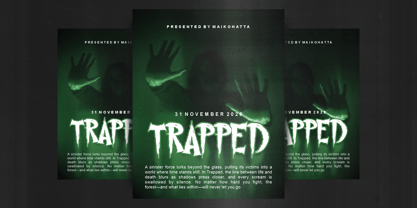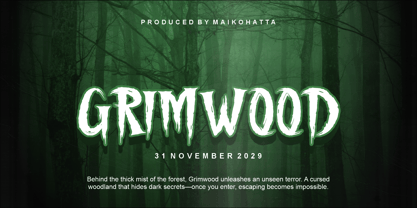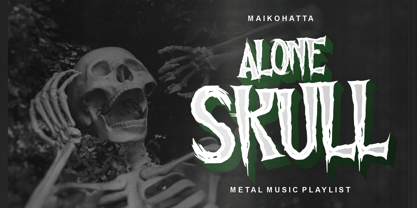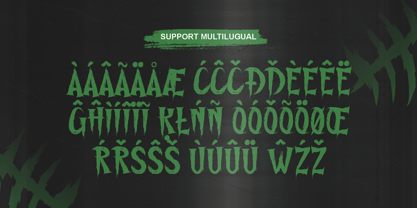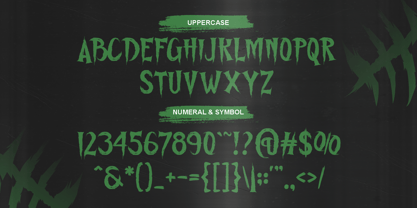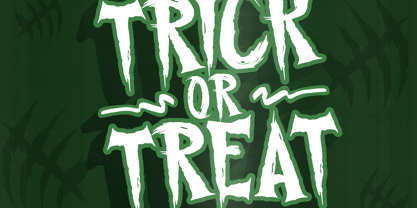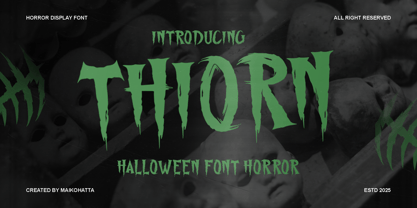
Thiorn
by Maikohatta
The Thiorn Font Family was designed by Gilang Ternadho and published by Maikohatta. Thiorn contains 1 styles. More about this family
Thiorn – Halloween Font Horror Thiorn is a bold and terrifying horror display font designed to bring chills to your creative projects. With its jagged strokes, dripping details, and eerie irregularities, this typeface perfectly captures the essence of Halloween and all things spooky. Ideal for horror movie posters, Halloween party invitations, creepy book covers, haunted house signage, or any design that demands a dark and sinister atmosphere. Its distressed and hand-drawn look adds an authentic scary vibe, making Thiorn a must-have font for designers who want to leave a haunting impression.
Designers: Gilang Ternadho
Foundry: Maikohatta